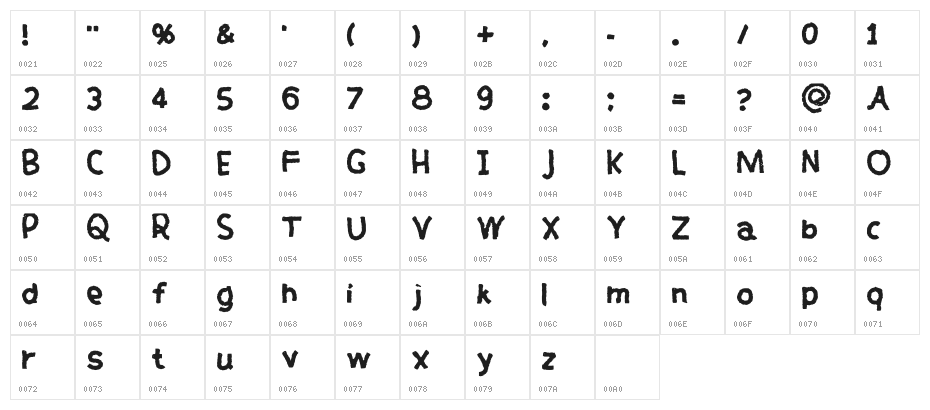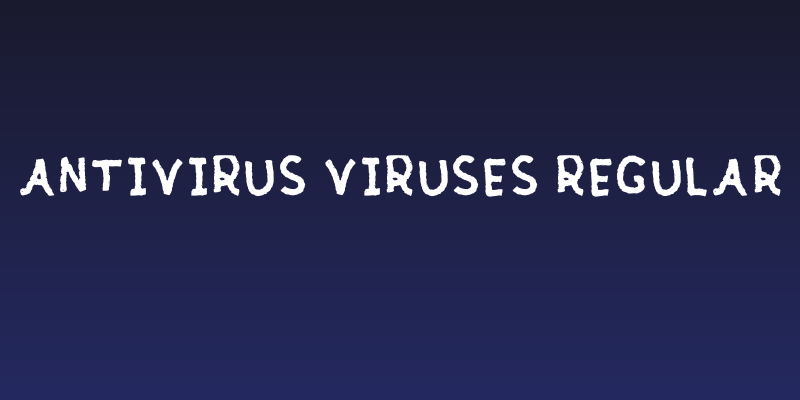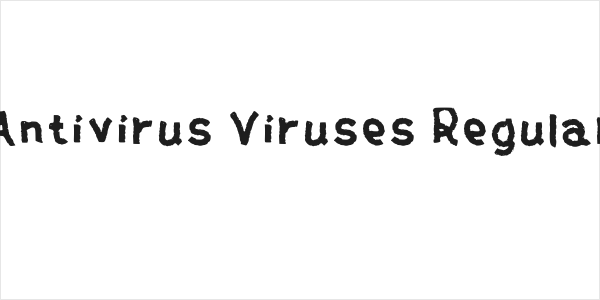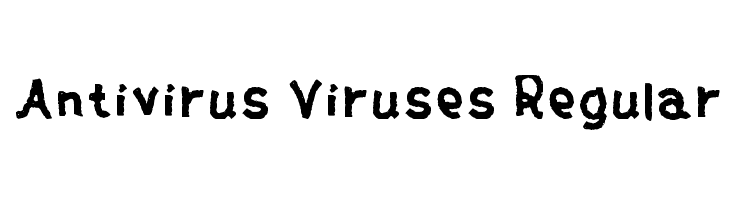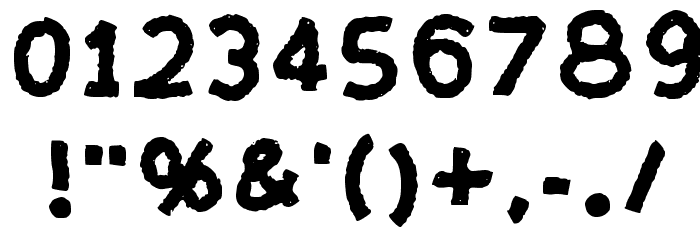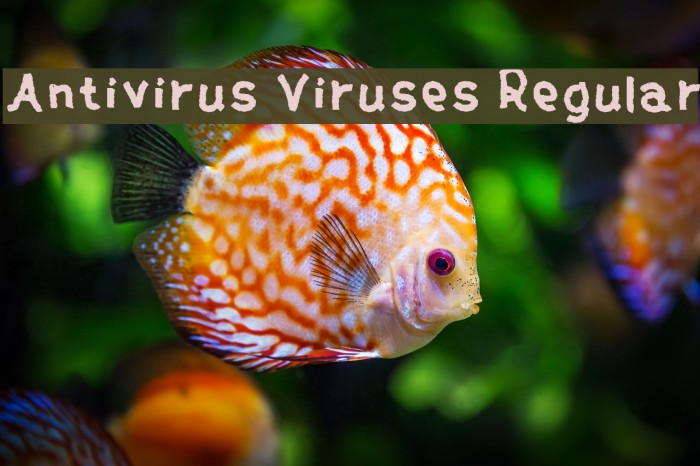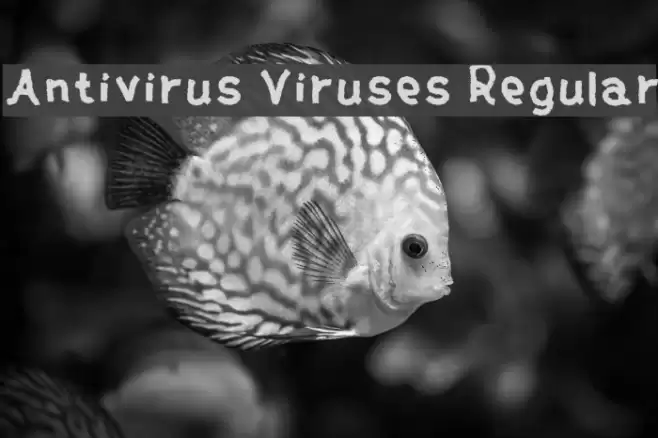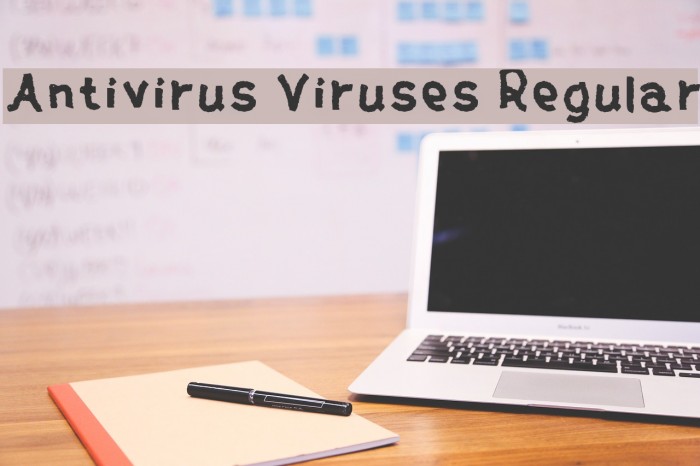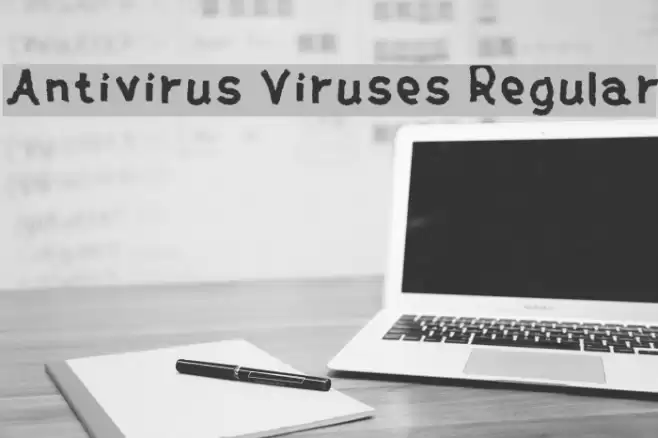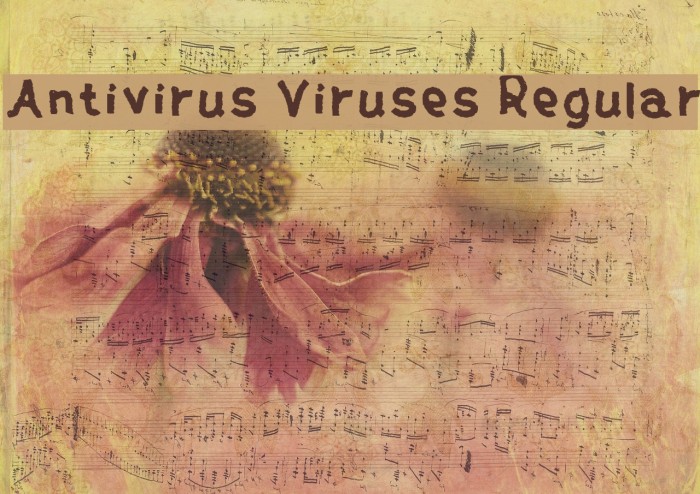
Antivirus Viruses Regular Font
Antivirus Viruses Regular Description
This font features a playful and slightly irregular style, reminiscent of hand-drawn or stamped lettering. The characters have a bold and chunky appearance, with uneven edges that give them a casual and organic feel. The uppercase and lowercase letters maintain a consistent weight, while the numerals and special characters follow the same design ethos, ensuring uniformity across all glyphs. The font's unique texture and informal style make it stand out, adding a touch of personality and creativity to any design project.
| Overall Style | Playful, Organic |
| Proposed Projects | Ideal for children's books, creative posters, casual branding, and playful invitations. |